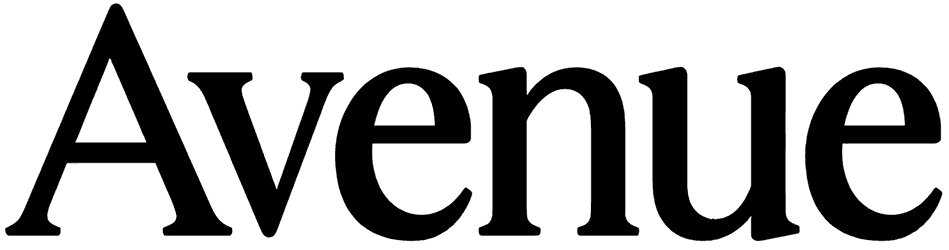
MADE Avenue Font
MADE Avenue is a vintage font with an undeniable personality that is old yet golden. This serif font is perfect for brands that want to give their logos, brand products, and other printed and digital designs a timeless l…
MADE Avenue is a vintage font with an undeniable personality that is old yet golden. This serif font is perfect for brands that want to give their logos, brand products, and other printed and digital designs a timeless look. So if you are looking for a way to make your projects stand out while keeping it simple, MADE Avenue deserves a special place in your library.
MADE Avenue is a classic serif typeface.